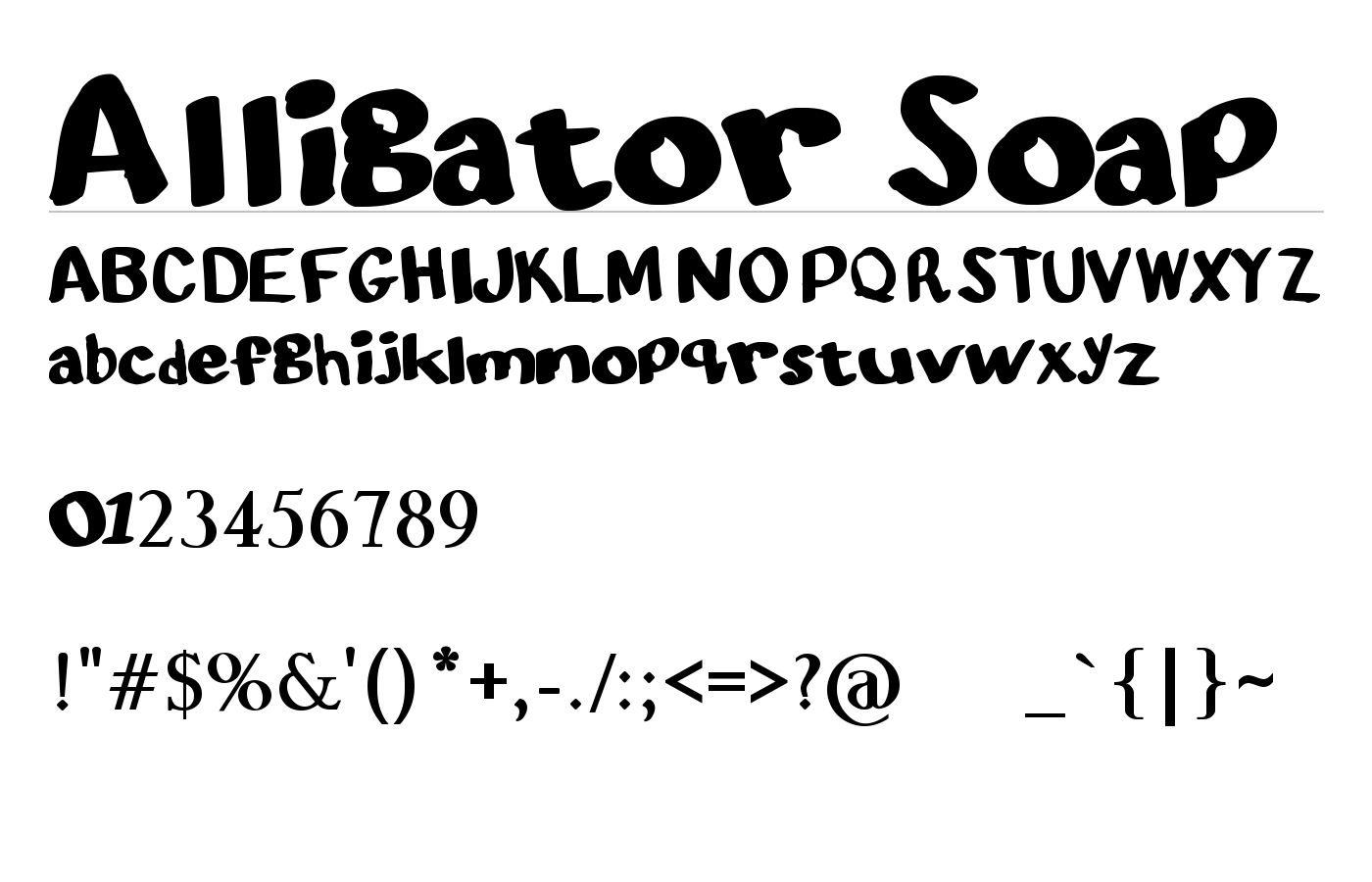
Alligator Soap is a bold, playful sans serif font featuring irregular, rounded letterforms that give it a handcrafted, casual feel. Its chunky weight and lively shapes make it perfect for designs aiming to convey friendliness and creativity, such as children’s books, informal branding, and fun posters. This font works well in headlines and display settings where personality and approachability are key.
Alligator Soap Font
About Alligator Soap Font